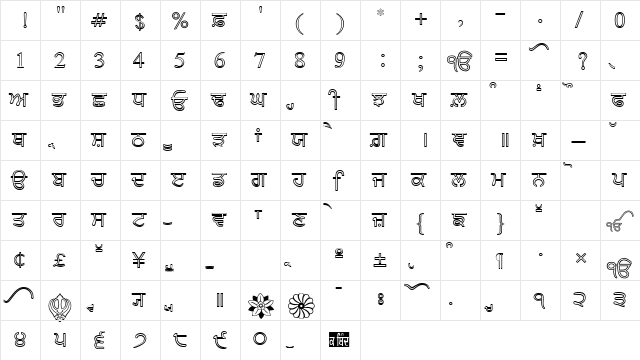
AnmolNeon Regular
Design Context for AnmolNeon Typeface
AnmolNeon channels digital-age aesthetics through its sharp, structured letterforms — ideal for brands that want to signal innovation.
Pro Tip: Try AnmolNeon with generous letter-spacing in UI labels and navigation — the geometric forms benefit from room to breathe.